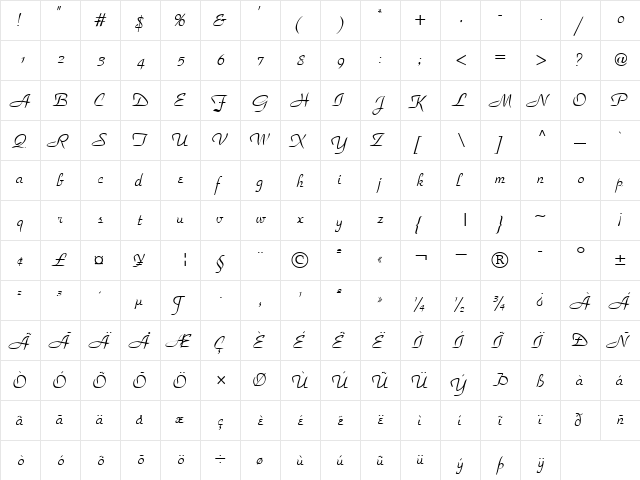
UpscaleScriptSSK Regular
Design Context for UpscaleScriptSSK Typeface
UpscaleScriptSSK flows with the natural rhythm of handwritten lettering, making it ideal for designs that call for warmth and personal expression.
Font Pairing: Combine UpscaleScriptSSK with a simple geometric sans for maximum contrast — the tension between flowing curves and clean structure is a classic typographic pairing.
Pro Tip: Pair UpscaleScriptSSK with a clean sans-serif for supporting text. The contrast between fluid script and geometric structure creates an elegant typographic hierarchy.